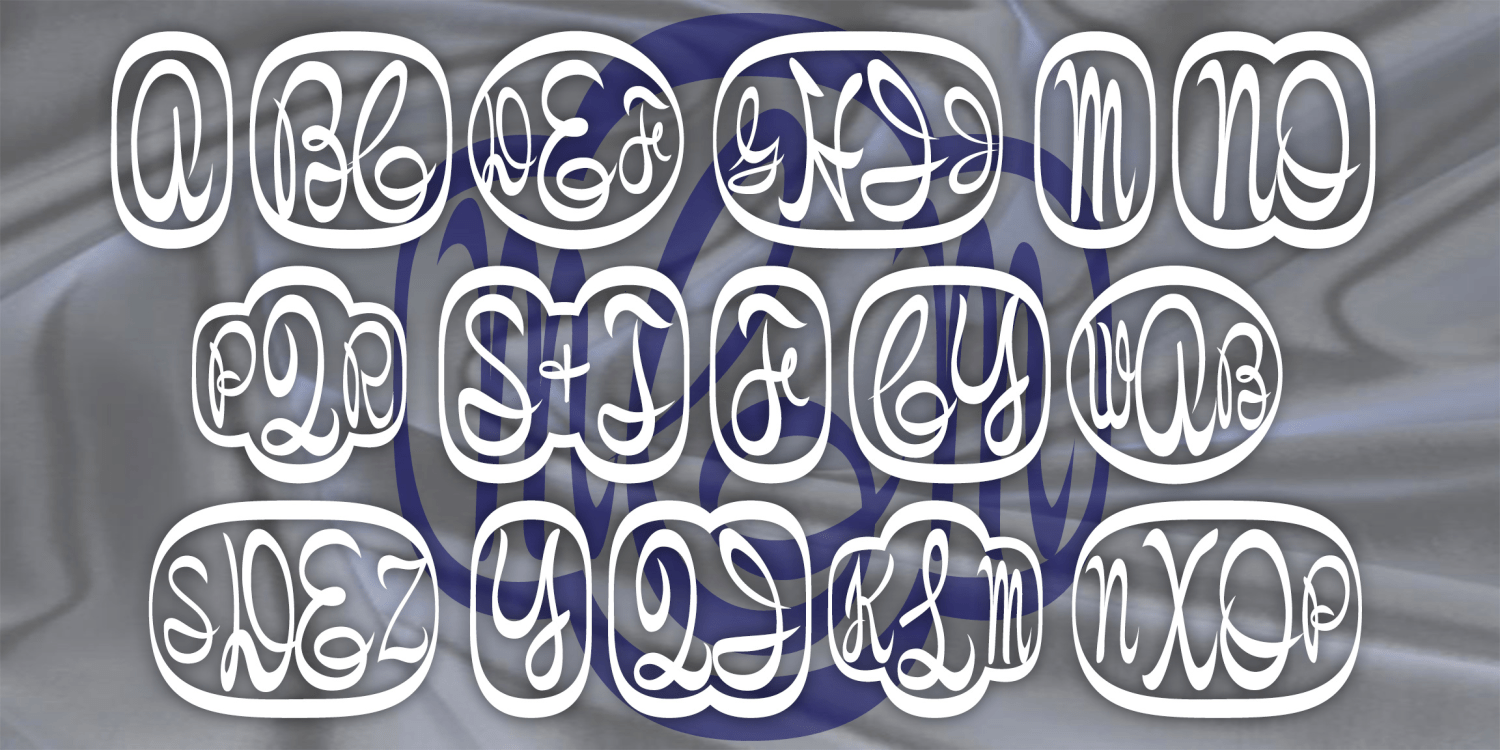
Ceremony Monograms
This unique font will allow you to create custom 1-, 2-, 3- or 4-letter monograms in a distinctive script style with a choice of decorative frames.